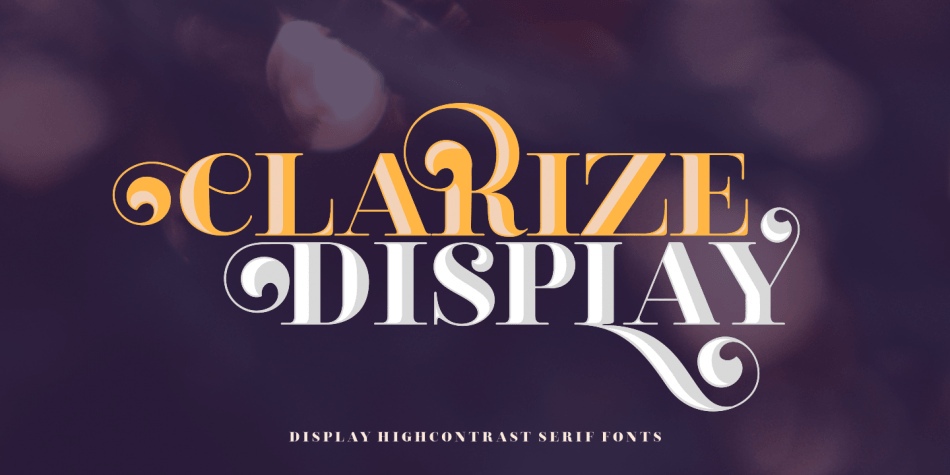
Clarize Display Font
Clarize Display Font is perfect for various design applications including crystal-clear corporate communications, precision-focused tech company branding, clarity-driven educational materials, transparent organization signage, clear vision consulting services, illuminating design agency portfolios, bright lifestyle brand identities, lucid publishing projects, transparent wellness communications, and enlightening professional service materials. This luminous typeface excels in projects requiring absolute clarity and brilliant communication that cuts through confusion and delivers messages with crystal-clear precision and enlightening transparency.
What makes Clarize Display Font so exciting is its masterful embodiment of absolute clarity and brilliant communication through letterforms that eliminate visual noise and deliver messages with crystalline precision and enlightening transparency. The font features ultra-clean construction that ensures perfect readability, optimized proportions that create visual clarity and immediate comprehension, and distinctive character details that reflect the precision and transparency that defines excellent communication design. Its distinctive clarity character and illuminating appeal make it perfect for organizations seeking to communicate transparency, intelligence, and the kind of crystal-clear messaging that builds trust and understanding.
Clarize Display Font family includes multiple luminous weights and clarity-focused variations that enhance its versatility for different transparent communication applications. Each style maintains the font's signature clear character while providing options for various precision design approaches. The family also features clarity-themed decorative elements, transparency symbols, and illumination-inspired ornaments that can be combined with the letterforms to create cohesive crystal-clear design systems.
Clarize Display Font stands out by delivering authentic communication clarity that feels genuinely transparent rather than artificially simplified or superficially clean. Its carefully engineered clarity proportions and transparency details ensure that designs feel authentically connected to excellent communication principles while maintaining sophisticated design appeal. From corporate transparency communications to educational clarity materials, this font provides designers with tools to create communications that celebrate clear messaging and inspire appreciation for transparent communication through brilliant, clarity-inspired display typography that illuminates understanding and builds trust.